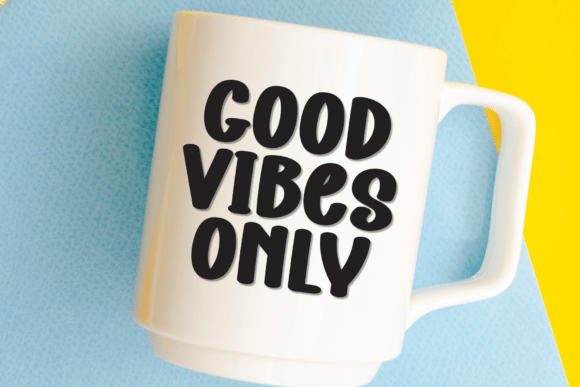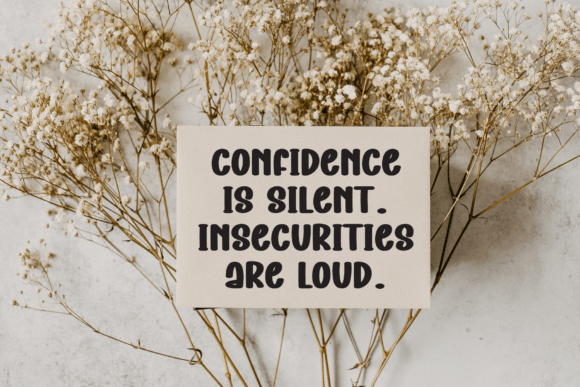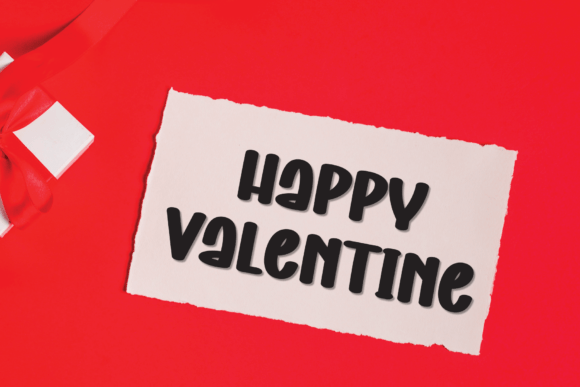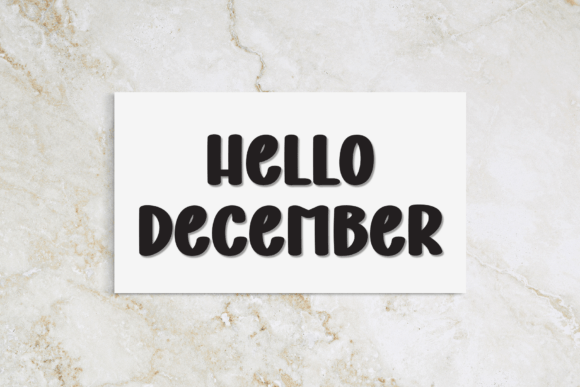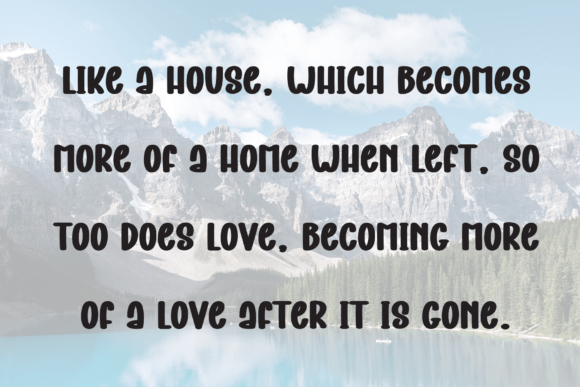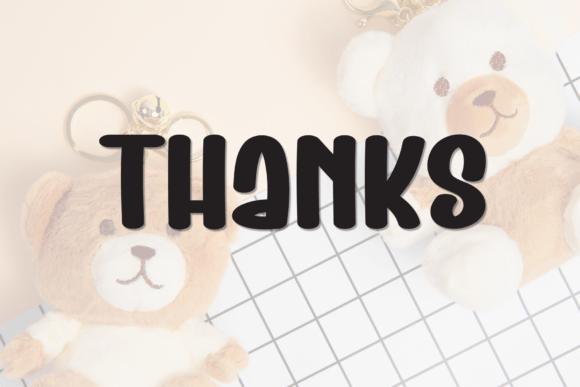
Introduction to Cute Charm Font
The Cute Charm font is a “new style and unique” typeface that radiates personality through its “bubbly” yet structured letterforms.
This font features heavy, rounded strokes with playful “flares” on the descenders and terminals, creating a look that is both trendy and heartwarming The Cute Charm typeface is a premier choice for youth-oriented branding, nursery wall art, and personalized gift merchandise.